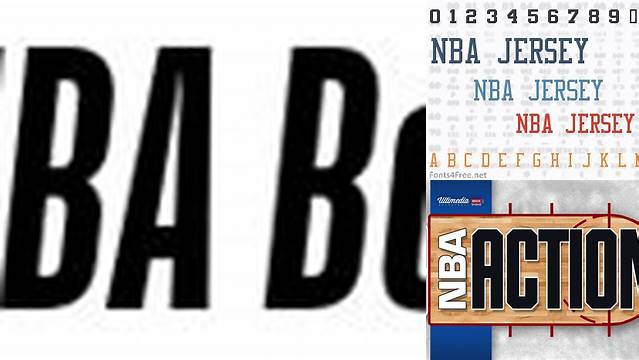
Action NBA Font: Free Download Guide
Hey guys! Ever wondered how to get that super cool, dynamic font you see in NBA action graphics? You're in the right place! Today, we're diving deep into the world of the Action NBA font, exploring everything from what it is to how you can snag it for your own projects. Let's get started!
1. What is the Action NBA Font?
The Action NBA font isn't just any typeface; it's a symbol of the league’s high-energy, dynamic brand. Think of all those slam dunks, fast breaks, and buzzer-beaters – that's the vibe this font brings to the table. Officially, the NBA uses a specific set of fonts for their branding, which includes various weights and styles optimized for both print and digital media. However, the term "Action NBA font" often refers to fonts that closely mimic the aesthetic of these official typefaces – bold, strong, and full of movement. These fonts are designed to capture the essence of basketball, making them perfect for sports-related graphics, posters, videos, and even your personal projects if you’re a die-hard fan. The key to understanding the Action NBA font is recognizing its purpose: to evoke a sense of excitement and competition. This means that the font typically features sharp angles, strong lines, and a substantial weight, making it highly legible even in high-action contexts. When you see a font described as being in the style of the Action NBA font, it's likely to have these core characteristics. Moreover, because the NBA's brand is so globally recognized, using a similar font can instantly lend your work a professional and authoritative feel. Whether you're creating a banner for your local basketball team or designing a sports-themed website, understanding the visual language of the Action NBA font is crucial. It’s not just about the letters; it’s about the entire visual impact that mimics the thrill of the game.
2. Identifying Fonts Similar to the Official NBA Font
Identifying fonts similar to the official NBA font can be a fun challenge, almost like a visual scavenger hunt! The official NBA font family is carefully selected to embody the league's dynamic and energetic spirit, but similar fonts exist that can give you the same vibe. One of the first places to start is by looking for fonts that have a strong, athletic feel. These often include bold, sans-serif typefaces with clean lines and a powerful presence. Think fonts that scream speed and action! Another clue is the font’s weight and width. The official NBA font tends to be quite bold, ensuring it stands out even in fast-paced broadcasts or on crowded merchandise. Look for fonts with a substantial weight and a slightly condensed width, which helps convey a sense of urgency and intensity. Online font identification tools can also be incredibly helpful. Websites like WhatTheFont or Font Matcher allow you to upload an image of the font you're trying to identify, and they'll suggest similar typefaces. This is super useful if you've seen the font in action but don't know its name. You can simply grab a screenshot, upload it, and let the tool do its magic. Don't be afraid to experiment with different combinations of keywords when searching for similar fonts. Try terms like "sports font," "athletic font," "varsity font," or "bold sans-serif font." Each of these keywords can lead you to different corners of the font universe, potentially uncovering some hidden gems that perfectly match the NBA aesthetic. Remember, the goal isn't necessarily to find an exact match, but to find a font that captures the same energy and feel. Sometimes, a slightly different font can even add a unique twist to your project while still paying homage to the iconic NBA look. Happy hunting, font fans!
3. Free Fonts That Mimic the NBA Style
Finding free fonts that mimic the NBA style can feel like hitting a three-pointer at the buzzer! There are tons of amazing free resources out there if you know where to look. One of the best places to start your search is on websites that specialize in free font downloads, such as Font Squirrel, Google Fonts, and DaFont. These platforms host a vast collection of typefaces, many of which have that bold, athletic feel that's characteristic of the NBA font. When you're browsing these sites, try using keywords like "sports font," "varsity font," or "athletic sans-serif" to narrow down your options. These terms will help you filter out fonts that don't quite match the style you're going for. Google Fonts is an especially great resource because all the fonts available there are open-source, meaning you can use them for both personal and commercial projects without worrying about licensing fees. Plus, Google Fonts integrates seamlessly with many design tools, making it super convenient to use in your work. Another tip is to look for fonts that have a slightly condensed width and a strong, uniform weight. These features are common in sports-related typography because they convey a sense of power and intensity. Think of fonts that look like they could be plastered across a basketball jersey or a stadium banner – those are the ones you want! Don’t underestimate the power of community recommendations, either. Online forums and design communities often have threads where people share their favorite free fonts. Keep an eye out for discussions about sports-themed fonts, as you might stumble upon some hidden gems that you wouldn't find through a regular search. Remember, while these fonts are free, it’s always a good idea to double-check the licensing terms to make sure you're using them correctly. Most free fonts come with a license that allows for personal use, but commercial use may have some restrictions. So, do your homework and happy designing!
10. Best Projects to Use the Action NBA Font For
The Action NBA font isn’t just a cool typeface; it’s a vibe! Knowing the best projects to use it for can seriously amp up your design game. This font is all about energy, excitement, and a touch of that competitive spirit, so let's dive into some killer applications. First off, sports-related designs are a no-brainer. Think posters for local basketball leagues, banners for school sports teams, or even graphics for your fantasy league. The bold, dynamic nature of the font perfectly captures the intensity of the game. It’s like a slam dunk for your visual message! Another great use is in event promotions. If you're organizing a sports tournament, a fitness event, or even a game night at your local bar, the Action NBA font can create eye-catching flyers and social media graphics that grab attention. The font's strong presence helps convey a sense of excitement and urgency, making people want to get involved. Logos and branding for sports-related businesses or organizations are also a fantastic fit. Whether you're designing a logo for a gym, a sports apparel brand, or a sports blog, this font can give your brand a professional and athletic edge. It communicates strength, energy, and a winning attitude – all key elements in the sports world. Video game graphics and streaming overlays are another area where the Action NBA font shines. If you're creating content for games like NBA 2K or streaming sports-related content on platforms like Twitch or YouTube, this font can add a polished, authentic look to your visuals. It's like giving your content a professional sports broadcast makeover. Lastly, personal projects can also benefit from the Action NBA font. If you're a huge basketball fan, why not use it for your fantasy team logo, your social media profile, or even a personalized jersey design? It’s a fun way to show off your passion for the game. So, whether you’re a designer, a marketer, or just a sports enthusiast, the Action NBA font is a versatile tool that can bring a whole lot of energy to your projects. Get out there and make some awesome stuff!